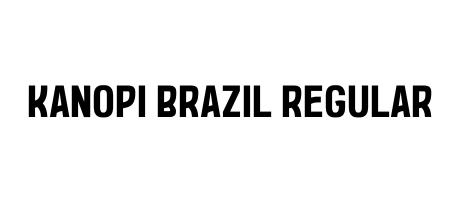
Kanopi Brazil
By Raxel Studio
Kanopi Brazil Regular: A bold, sans-serif typeface with a clean, contemporary feel. Its sturdy, slightly condensed letterforms project a sense of confidence and readability. The consistent weight and even spacing give it a modern, almost geometric quality, perfect for headlines or impactful text blocks. It’s versatile yet assertive.